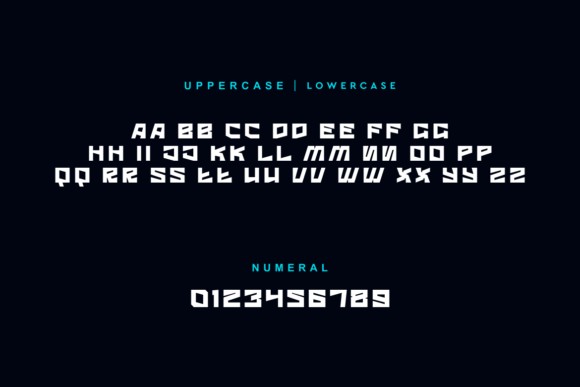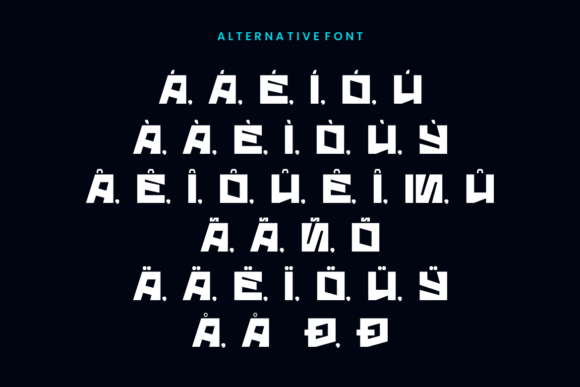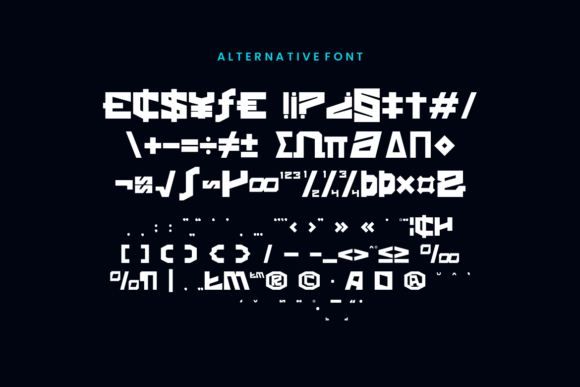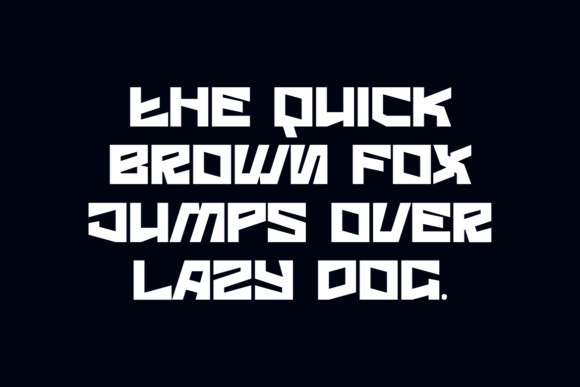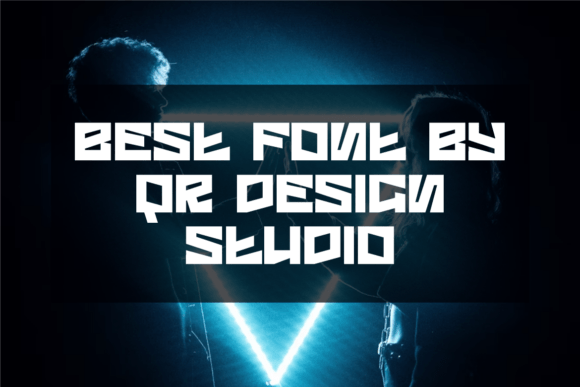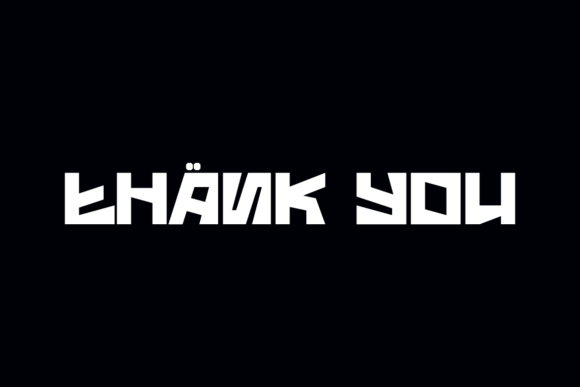
The Perfect Font for the Future: Unleashing the Power of Azyncro
Have you ever stared at a blank screen, waiting for the perfect font to spark your creativity? You know, that one moment when everything clicks and your design starts to take shape? For many designers, this moment is elusive, but with the right tools, it’s within reach. Azyncro Font is here to revolutionize the way you create, bringing a futuristic vibe to your designs.
This striking modern techno font is not just a design element, but a statement. Its bold, asymmetric characters and geometric cuts evoke a sense of rebellion and energy, making it perfect for electronic music branding, game design, and digital posters. The Azyncro Font’s unique construction and sharp personality create an immersive experience that’s sure to grab attention.
Azyncro Font Key Features
- Font Family: Azyncro Font is a unique sans-serif font family designed for modern designs and digital applications.
- Character Set: Supports a wide range of languages, including Latin, Cyrillic, and Greek alphabets, with over 500 glyphs and 1000 characters.
- Unique Characteristics: Azyncro Font features a distinctive blend of geometric and organic elements, resulting in a clean, modern aesthetic with a touch of sophistication.
Azyncro Font Review
I recently had the chance to work with the Azyncro font, and I must say, it’s a unique addition to any design project. ✨ The font’s asymmetrical design and unusual letterforms make it perfect for creating eye-catching headings and titles.
One of the things I love about Azyncro is its versatility. ✨ It works well in digital and print applications, and its bold, futuristic feel makes it perfect for designs that need a bit of edge. I also appreciate the fact that the font is highly customizable, allowing me to adjust the spacing and style to suit my needs.
Limits and Drawbacks
- ⚠️ Limited legibility in smaller font sizes: Due to its unique design, Azyncro can be difficult to read at smaller font sizes. This may limit its use in body text or other areas where readability is crucial.
- ⚠️ Not suitable for all audiences: The font’s bold, futuristic feel may not be to everyone’s taste, and it may not be suitable for designs that require a more traditional or conservative look.
Overall, I’m impressed with the Azyncro font, and I think it’s a great addition to any designer’s toolkit. While it may have some limitations, its unique design and versatility make it perfect for creating bold, eye-catching designs.
Tips for Getting the Most Out of Azyncro Font
Azyncro Font is a versatile font that can be used for various design purposes. Here are some tips to get the most out of it:
- Use Azyncro Font for titles and headings to create a visually appealing design.
- Experiment with different font sizes and colors to create contrast and emphasis.
- Pair Azyncro Font with other fonts to create a unique and interesting design.
Azyncro Font is commonly used for:
- Graphic design